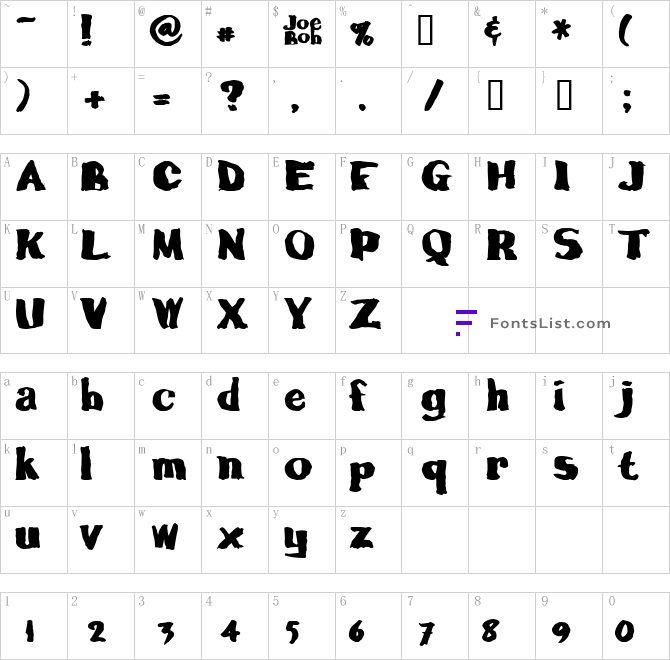
- Font Name:calamityJoe
calamityJoe.ttf is a very beautiful artistic font, calamityJoe.ttf is widely used in the design and printing of various books and pictures,calamityJoe.ttf has a strong visual impact,calamityJoe.ttf is a commonly used font in newspapers, magazines and books, and is used in posters, e-commerce Poster design, store design, logo design, font design and other fields.calamityJoe.